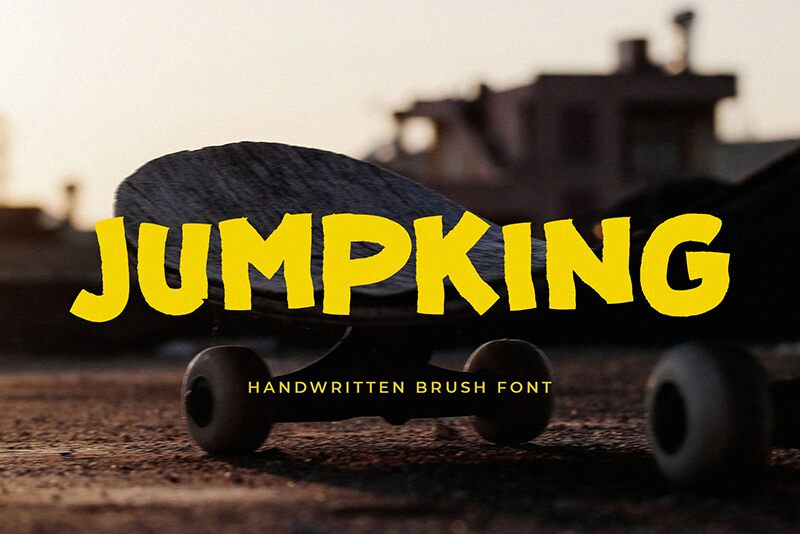
Jumpking
Jumpking, designed by BrandSemut, leaps off the page with its cartoon-inspired display font that is as bold as it is playful. With a semi-expanded width that commands attention, this typeface boasts a style that's brimming with energy and dynamism, making it an ideal choice for projects that require a touch of whimsy and enthusiasm.
The robust weight of Jumpking ensures high impact and excellent readability, while its quirky character shapes echo the fun and creativity often found in animated storytelling. Whether used for titles on children's books, branding for entertainment-focused companies, or promotional materials for events that celebrate imagination, Jumpking adds an element of joy and liveliness.
Embrace the spirited personality of Jumpking to infuse your creative endeavors with a sense of adventure and lightheartedness.